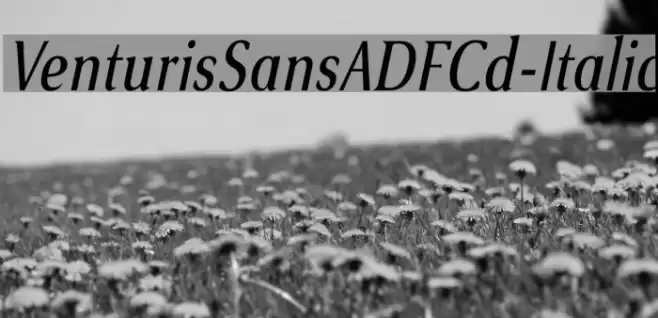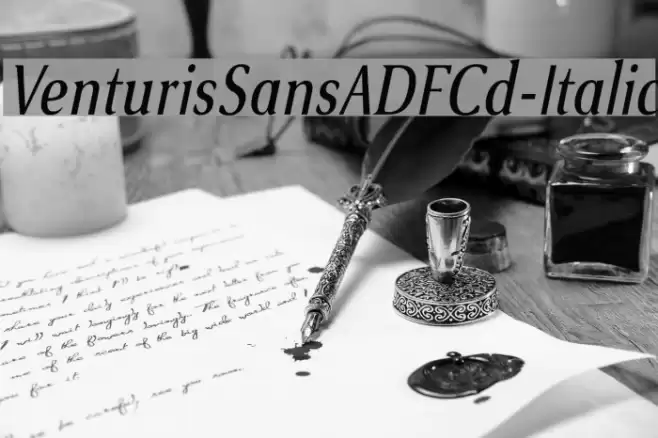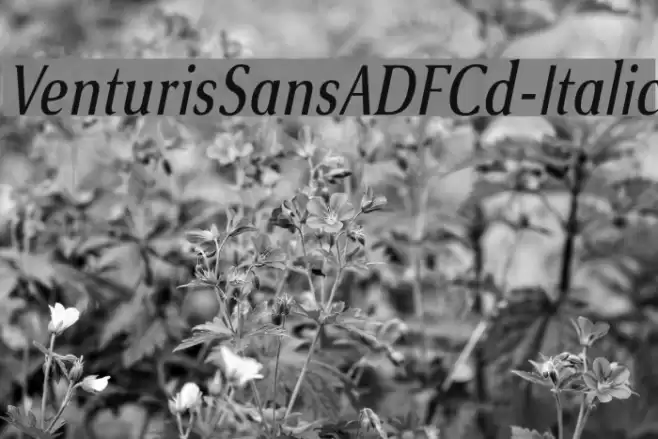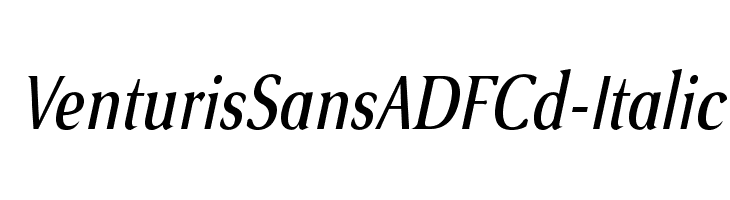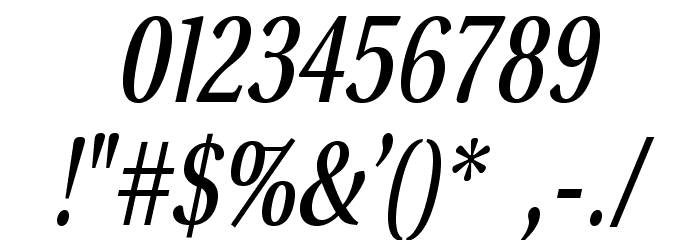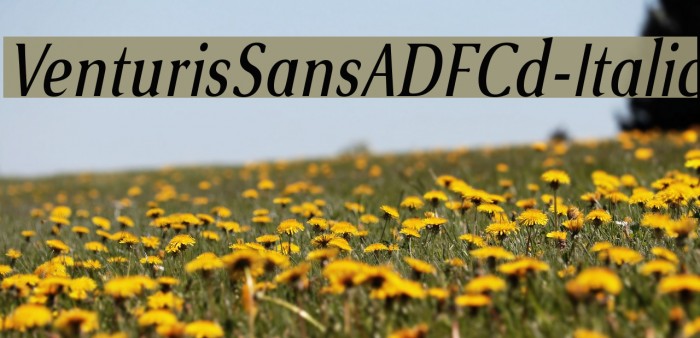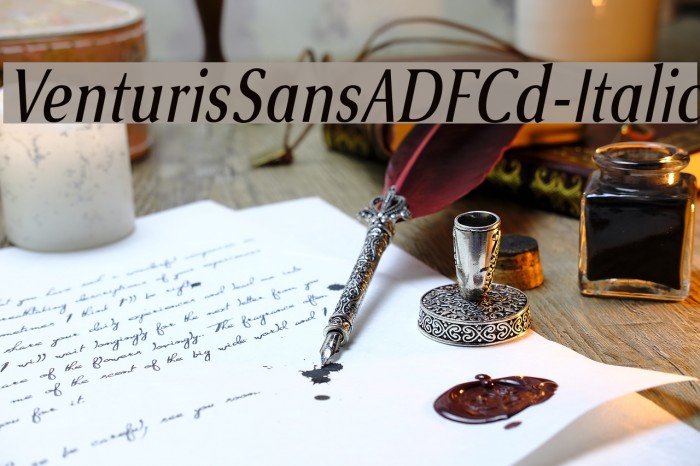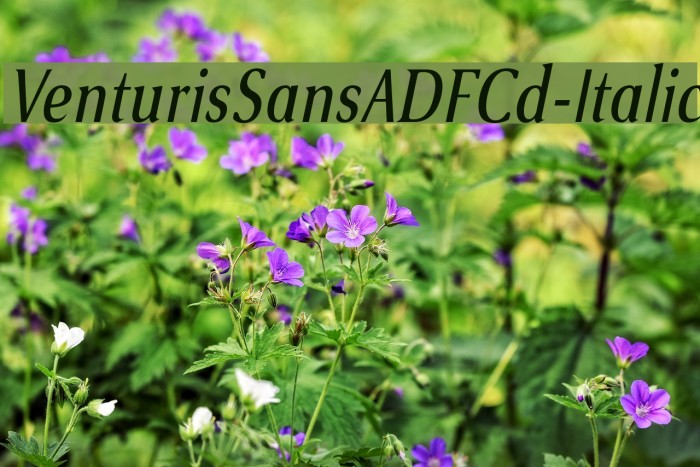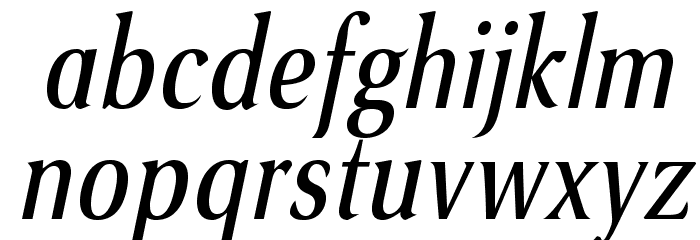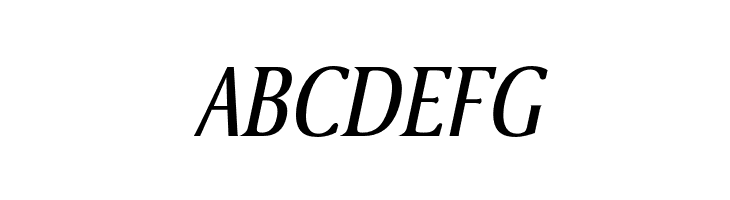
VenturisSansADFCd-Italic Font
VenturisSansADFCd-Italic Description
This font features a sleek and elegant design with a slight slant, indicative of its italic style. The characters are well-defined with a moderate contrast between thick and thin strokes, giving it a sophisticated appearance. The uppercase letters are tall and commanding, while the lowercase letters maintain a consistent flow, enhancing readability. The numerals are clear and distinct, matching the overall aesthetic of the font. Special characters are included, maintaining the same stylistic integrity. This font is versatile, suitable for both digital and print media, and can be used effectively in various design projects.
An elegant italic font with moderate contrast and a sophisticated style from Uncategorized fonts.
- Proposed Projects: Ideal for branding, editorial design, advertising, and elegant invitations.